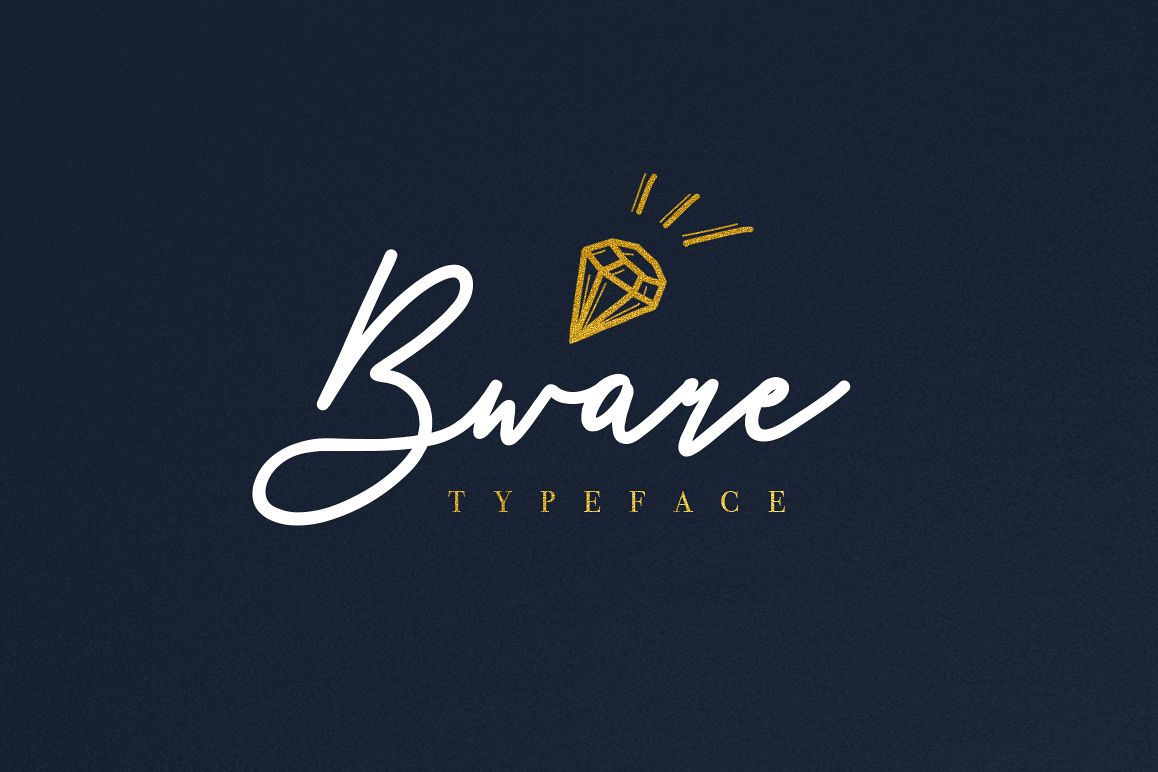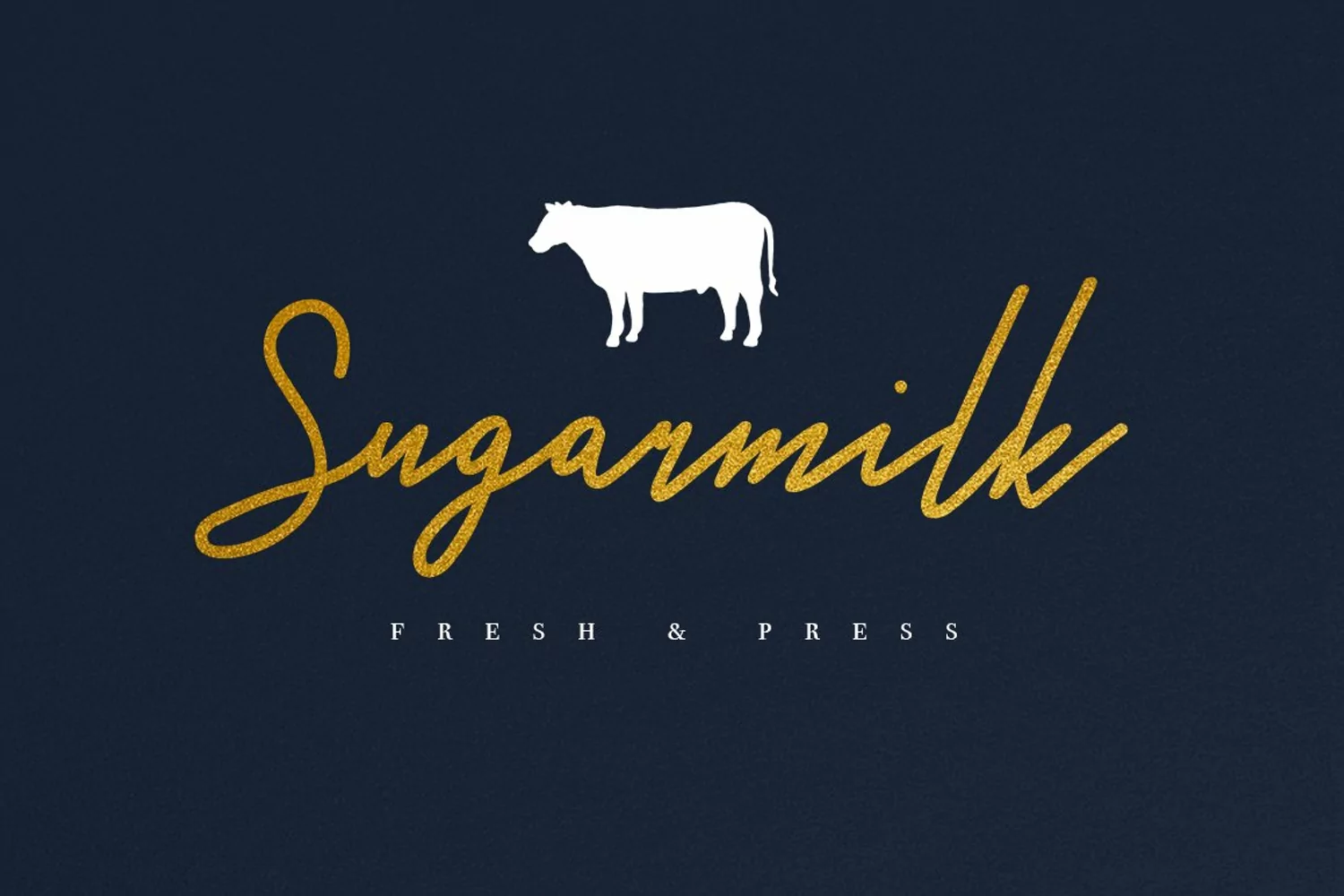
Give your designs an authentic handcrafted feel. "Bware Typeface" is perfectly suited to signature, stationery, logo, typography quotes, magazine or book cover, website header, clothing, branding, packaging design and more.Includes: